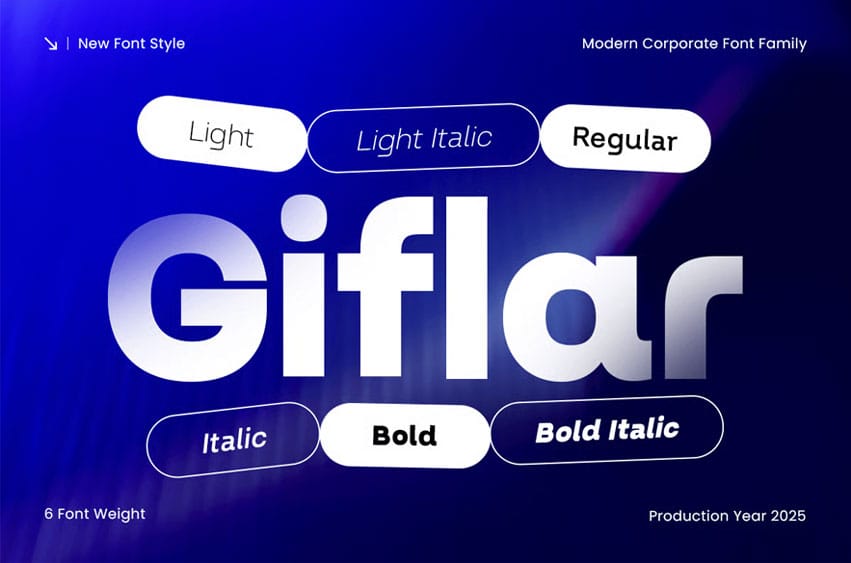
Giflar Font Modern Corporate Font Family is a professional typeface family created to support clean, confident, and scalable business identities. Inspired by corporate branding systems, modern typography standards, and functional design principles, Giflar is designed for brands that require clarity, consistency, and credibility.
With its structured letterforms, balanced proportions, and harmonized styles, Giflar allows designers to create cohesive logos, headlines, and corporate communications across print and digital platforms. Each style is carefully crafted to work together, making Giflar ideal for complete business and corporate identity systems.
Giflar Font Features
- Complete character set including uppercase, lowercase, numerals, symbols, and punctuation
- Ready with light, regular and bold, for each weights prepared for italic version
- OpenType features included to support professional typography and corporate branding needs
Whether you are developing a corporate brand system, designing professional business communications, or building a modern company identity, Giflar delivers clarity, trust, and contemporary professionalism across all applications.